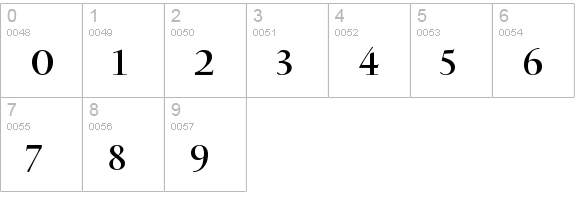
Arepo Std Bold is a strong, high-contrast variant in the Arepo typeface family \xE2\x80\x94 well suited to headlines, attention-grabbing titles, and strong calls-to-action.
Arepo Std Bold is a stunning and versatile font that exudes a sense of strength and sophistication. Its bold and commanding presence makes it perfect for headlines, titles, and other prominent text in both print and digital designs. The sturdy letterforms of this typeface are carefully crafted to ensure maximum legibility and impact. One of the best things about Arepo Std Bold is that it is completely free to download. You can easily access this impressive font at FontsMarket.com, where you can enhance your projects with its bold and impactful style without any cost. Whether you are working on a poster, website, or any other design project, Arepo Std Bold is sure to make a bold statement and leave a lasting impression on your audience. Download Arepo Std Bold today and elevate your designs with this powerful and eye-catching font that is freely available for all your creative needs.